Athletic fonts aren’t just letters on a page; they’re the visual embodiment of strength, speed, and competitive spirit. They need to convey power while maintaining readability, capture motion while staying grounded, and inspire confidence in both athletes and fans alike.
In this comprehensive guide, we’ll explore the championship-worthy athletic fonts that are dominating the sports design scene in 2026. From bold display fonts that command attention to sleek sans serifs that convey modern athleticism, I’ve curated a lineup that’ll help your sports-related designs cross the finish line in first place.
The MVP Athletic Fonts of 2026
Not all athletic fonts are created equal. Some scream “weekend warrior” while others whisper “championship material.” After analyzing countless sports brands, team logos, and athletic designs, I’ve compiled this all-star roster of athletic fonts that truly deliver:
Suportigo
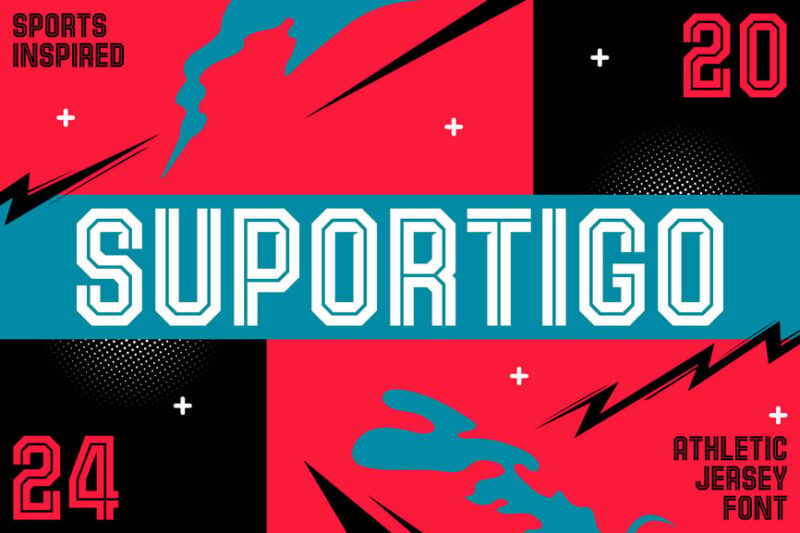
Suportigo is a bold, athletic sans-serif font designed specifically for sports jerseys and soccer-related designs. Its strong lines and dynamic character make it perfect for creating eye-catching team uniforms and sports branding materials.
Huddle
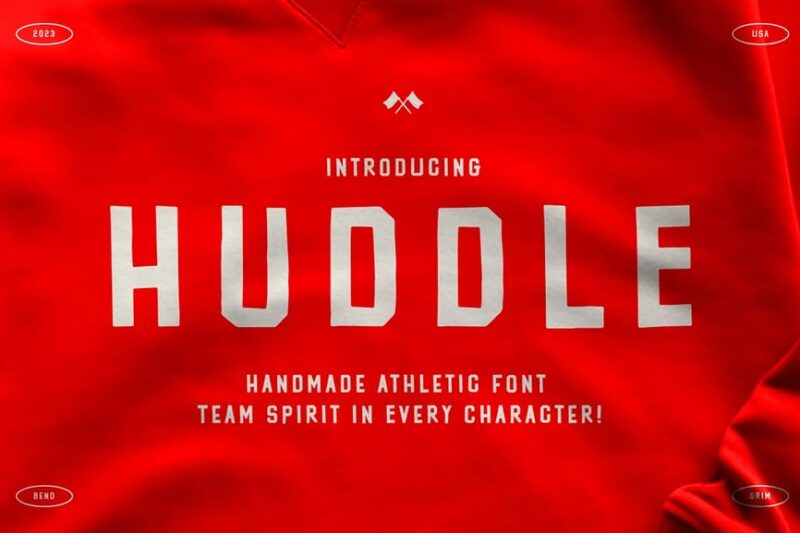
Huddle is a versatile sans-serif sports font that combines sporty elements with a scholastic feel. Its clean lines and balanced proportions make it ideal for both athletic branding and educational materials, offering a perfect blend of energy and readability.
Sport Maniac
Sport Maniac is a dynamic sans-serif font that captures the essence of athletic vigor and gaming excitement. Its bold character and energetic strokes make it an excellent choice for sports logos, game titles, and high-impact graphic designs.
Energize
Energize is a futuristic font with accompanying symbols, perfect for sports and workout-related designs. Its strong, active character embodies physical vitality, making it ideal for fitness branding, gym signage, and athletic apparel.
Turbo Striker
Turbo Striker is a bold, impactful sans-serif font designed for sports-related projects. Its strong, condensed letterforms convey speed and power, making it perfect for team logos, sports merchandise, and dynamic graphic designs.
Athletislab
Athletislab is a unique and fun font that combines sporty aesthetics with a slab serif style. Its techy edge and robust character make it ideal for modern sports branding, athletic tech products, and contemporary fitness-related designs.
Alpha Player
Alpha Player is a decorative serif font that embodies the spirit of sports and racing. Its bold, angular design and unique character make it perfect for creating standout titles in sports magazines, racing event posters, and athletic brand identities.
Homerun Serif
Homerun Serif is a distinctive baseball font that captures the essence of baseball and classic sports aesthetics. Its strong serifs and balanced proportions make it ideal for creating vintage-inspired sports logos, team merchandise, and baseball-themed designs.
Fortune
Fortune is a sporty display sans-serif font with a masculine edge. Its bold, confident character makes it perfect for creating impactful sports headlines, fitness brand logos, and designs that require a strong, athletic presence.
Erasin
Erasin is a dynamic serif font designed specifically for sports-related projects. Its unique blend of classic serif elements with modern, athletic flair makes it versatile for various sports applications, from team branding to event promotion materials.
Dasport
Dasport is a specialized varsity letter font that pays homage to baseball aesthetics. Its classic design with subtle sporty touches makes it perfect for creating authentic baseball team logos, merchandise, and nostalgic sports-themed designs.
Spartan Spirit
Spartan Spirit is an athletic sans-serif typeface that embodies strength and determination. Its bold, condensed design with a hint of biking influence makes it ideal for creating powerful sports logos, team jerseys, and high-energy graphic designs.
Origin Athletic
Origin Athletic is a robust serif font that captures the essence of college sports and jersey designs. Its strong character and classic appeal make it perfect for creating authentic varsity logos, sports team branding, and collegiate-themed graphics.
Hock
Hock is a modern, condensed sans-serif font designed with hockey in mind. Its brutal, sporty character and strong lines make it ideal for creating impactful hockey team logos, ice rink signage, and other winter sports-related designs.
So next time you’re working on a sports-related project, choose your athletic fonts like you’re drafting for the championship. Because in the world of design, just like in sports, the right team makes all the difference.
Ready to dominate the field with your athletic typography? Grab one of these championship-worthy fonts and start creating designs that don’t just participate – they win.